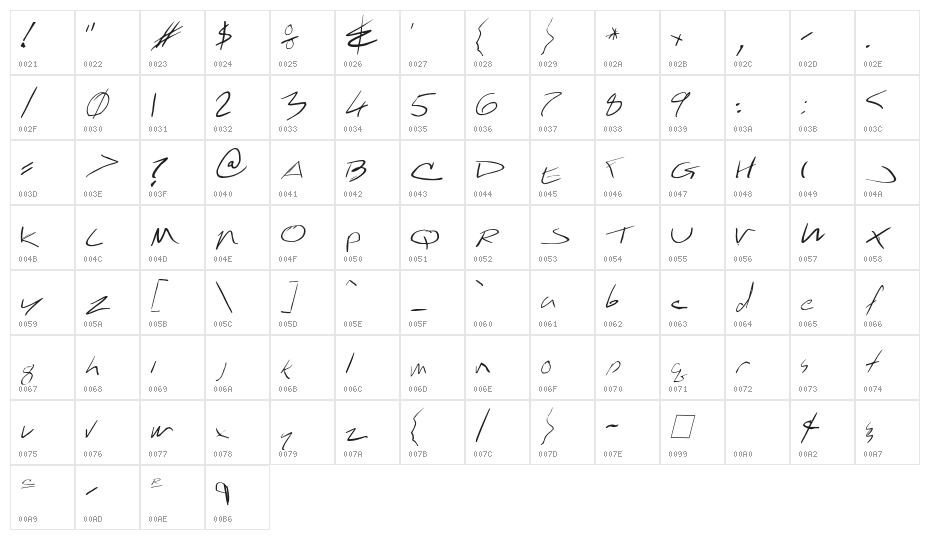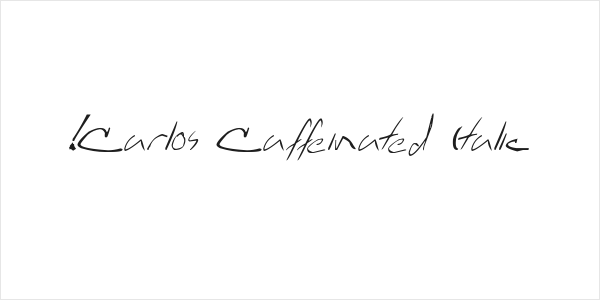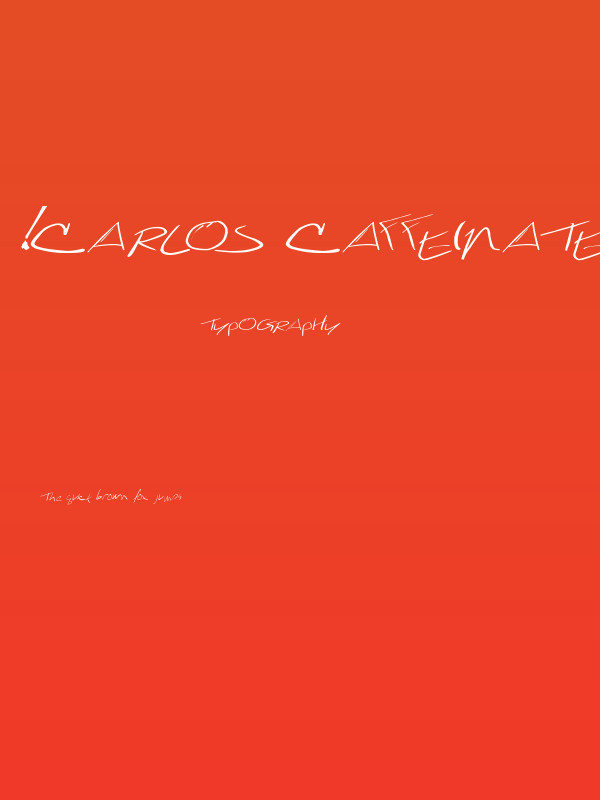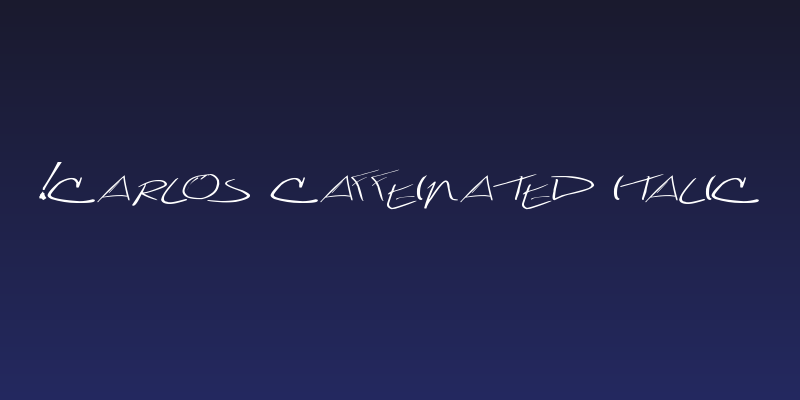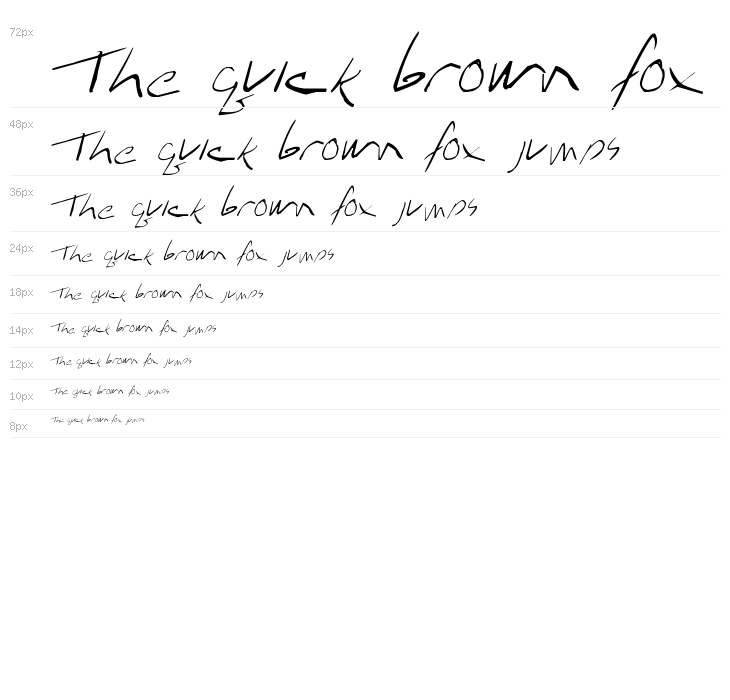
!Carlos Caffeinated Italic Font
!Carlos Caffeinated Italic Description
This font features a dynamic and energetic handwritten style, characterized by its swift, fluid strokes and a slightly slanted orientation. The letters exhibit a playful yet sophisticated flair, with varying line thickness that adds a sense of movement and rhythm. The uppercase and lowercase letters maintain a consistent style, while the numerals and special characters integrate seamlessly, enhancing the font's versatility. The overall appearance is casual yet refined, making it suitable for projects that require a personal touch.
| Proposed Projects | Ideal for greeting cards, personal branding, creative posters, and social media graphics. |